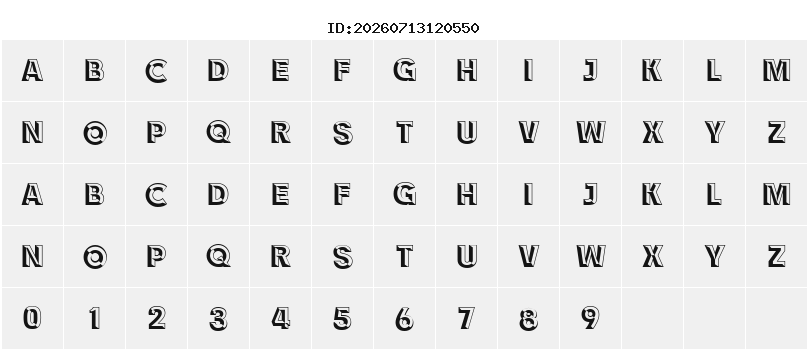
RACE1 Brannt Chiseled NCV Preview
• Font Name: RACE1 Brannt Chiseled NCV
• Full Font Name: RACE1 Brannt Chiseled NCV
• PostScript Name: RACE1BranntChiseledNCV
• Manufacturer: The Fontry
About RACE1 Brannt Chiseled NCV.ttf
RACE1 Brannt Chiseled NCV.ttf is a modern, elegant sans-serif font designed for ultimate readability and visual harmony. Perfect for branding, headlines, web design, and print materials.